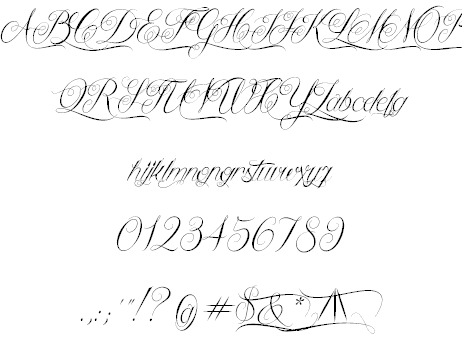
Free Queen of the Moon Font
Take a look at this dazzling free queen of the moon font. This typeface file was found from the amazing source called Font Space. Amaze your fellow designers and create stunning designs with this fancy font.